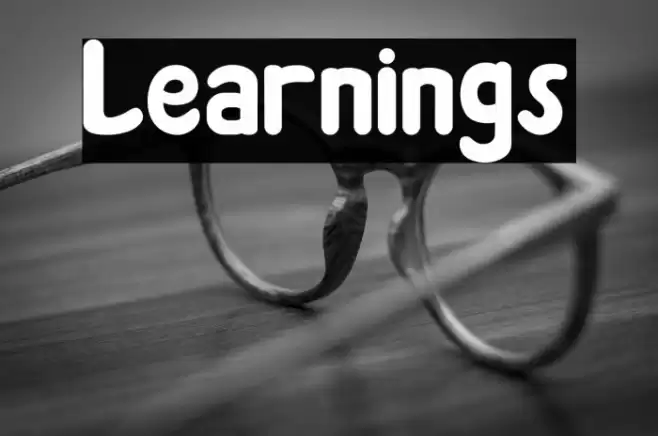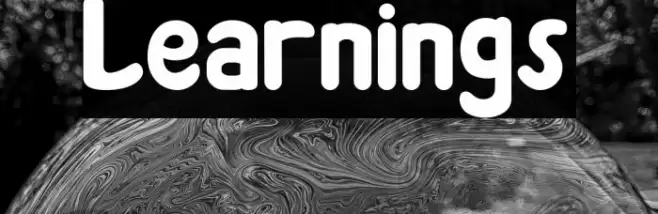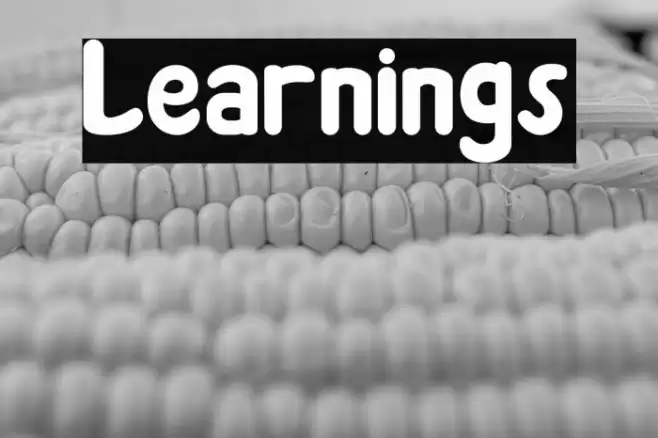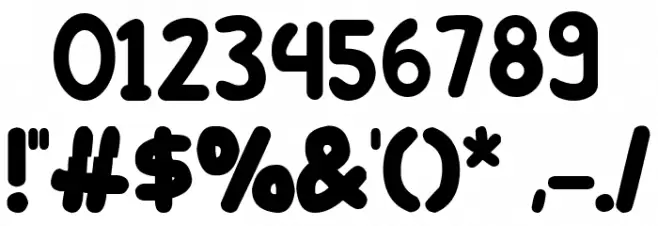
Learnings Font
Learnings Description
This playful and bold font features rounded edges and a bubbly appearance, giving it a friendly and approachable feel. The characters are uniformly thick, contributing to a consistent and cohesive look. The uppercase and lowercase letters maintain a similar width, enhancing readability. The numbers and special characters are designed to match the overall style, ensuring a harmonious appearance across all text. This font's unique style makes it suitable for projects that require a touch of whimsy and creativity.
A playful, bold font with rounded edges and a bubbly appearance from Regular fonts.
- Proposed Projects: Ideal for children's books, playful branding, casual invitations, and creative posters.
- Overall Style: Playful